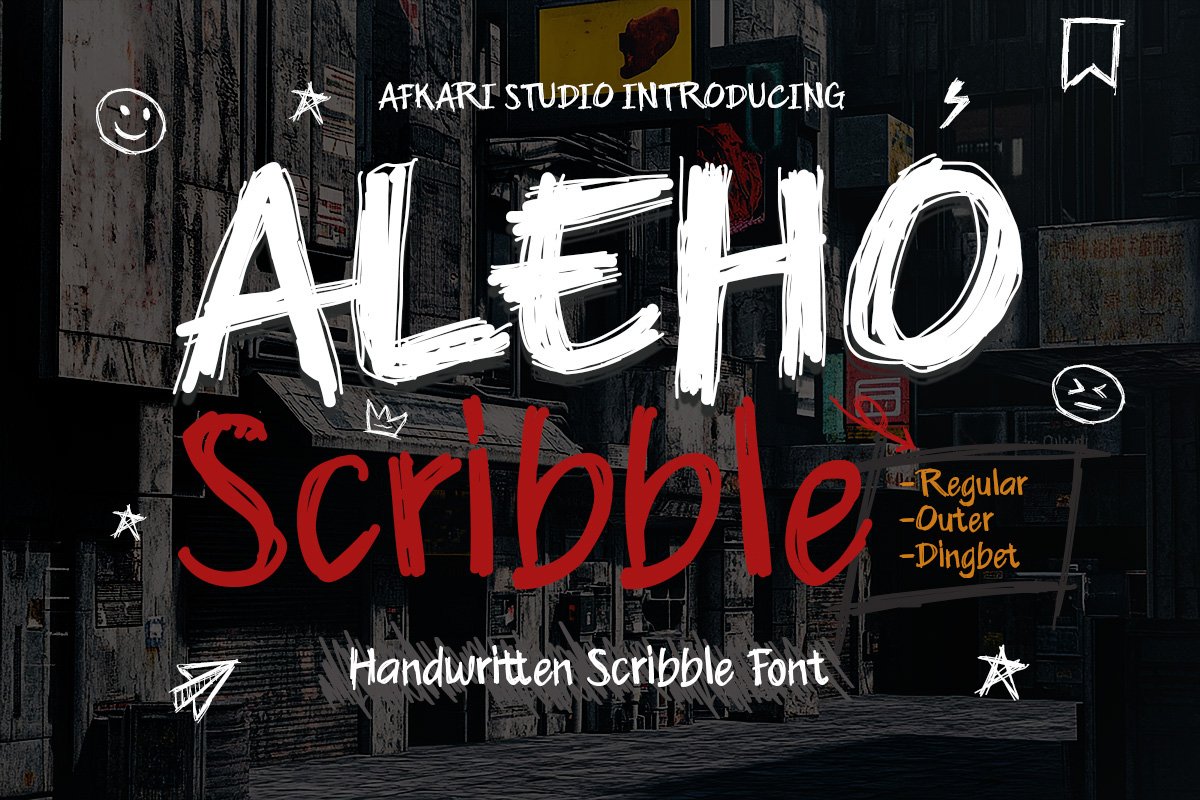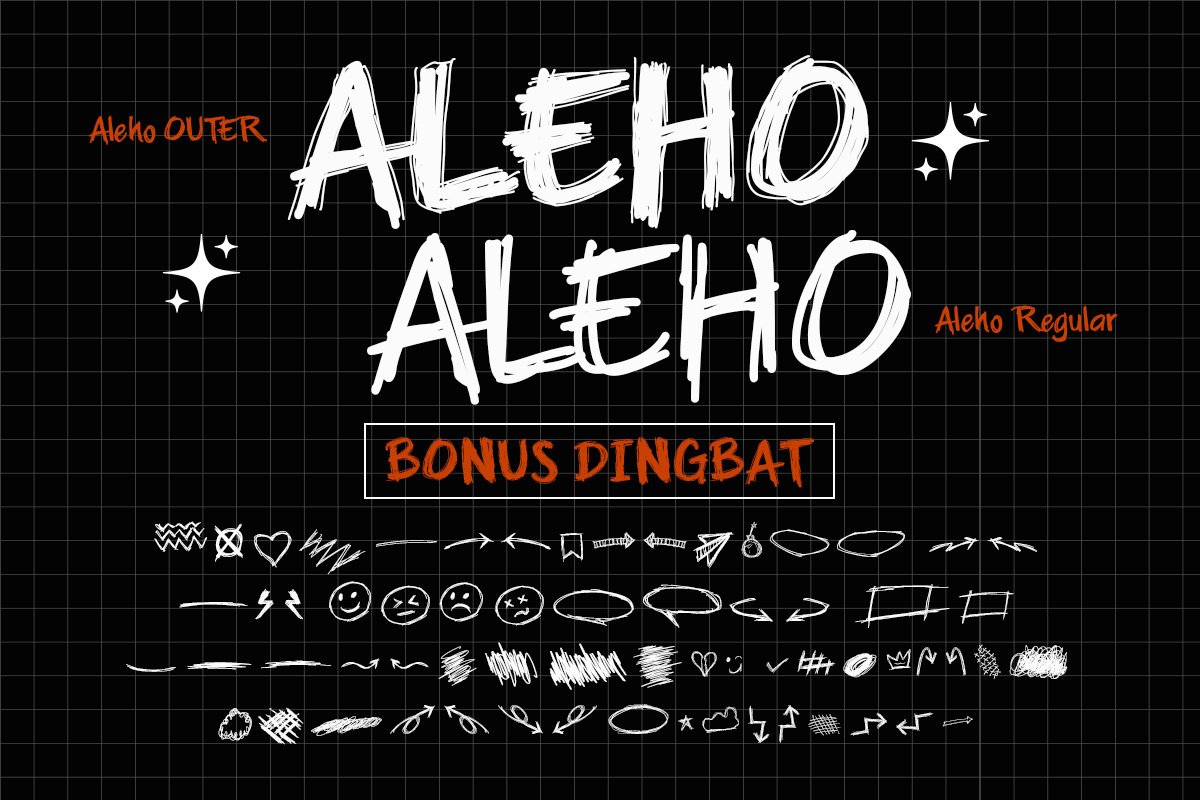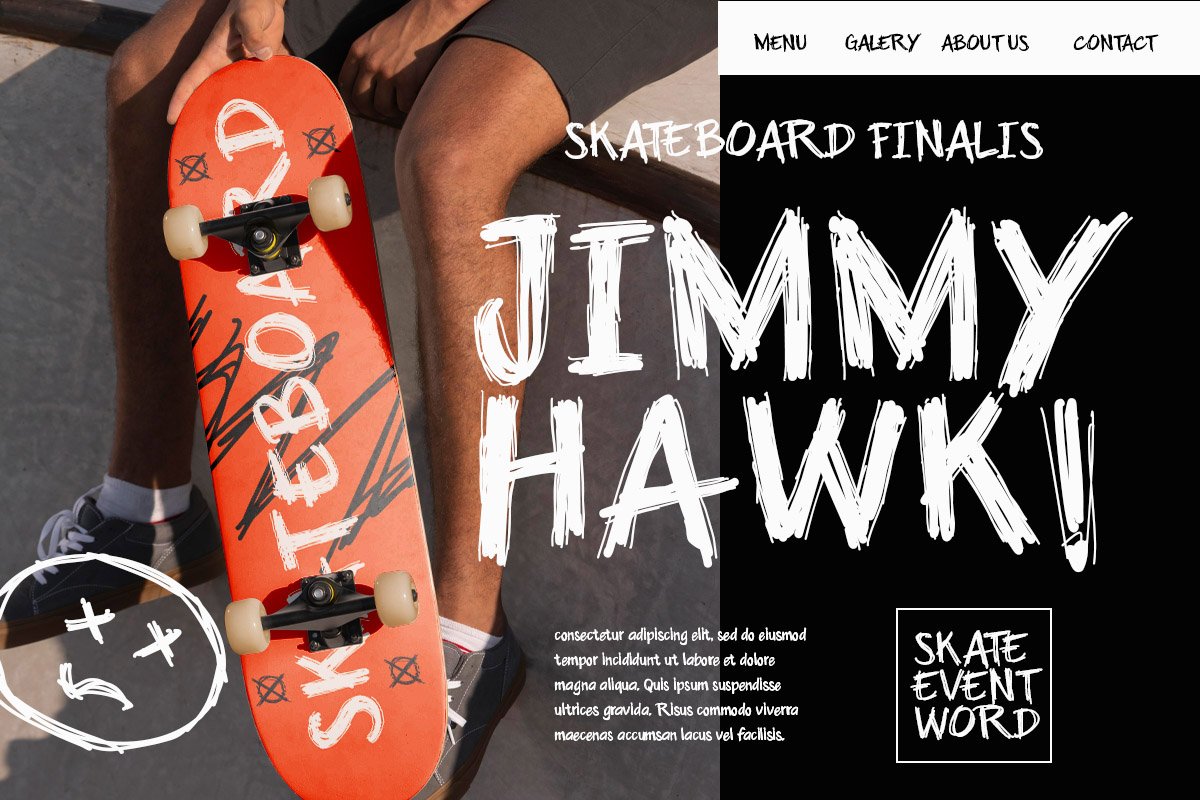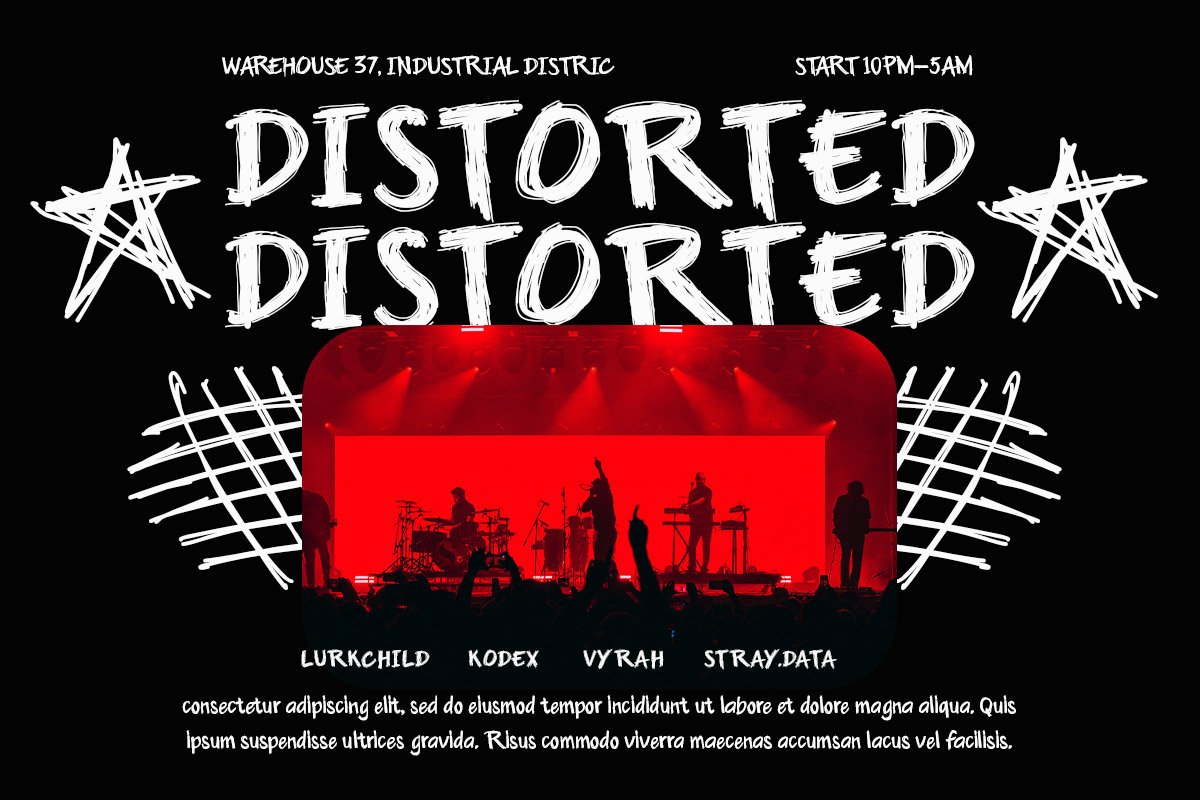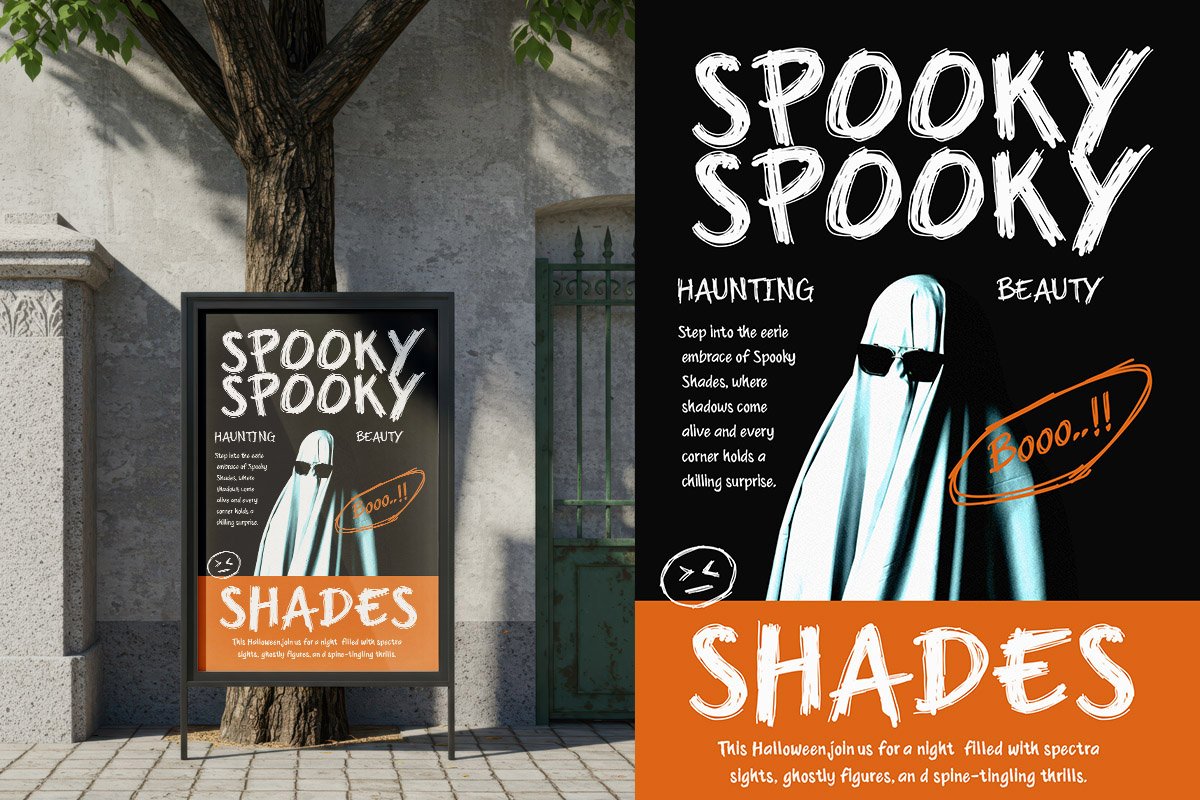
Aleho Scribble – Handwriting Font is a playful font designed to bring a spontaneous, fun, and creative feel to your designs. Inspired by natural doodles and casual handwritten strokes, this font captures the imperfect charm of hand-drawn lettering, making every project feel more personal and expressive.
Aleho Scribble